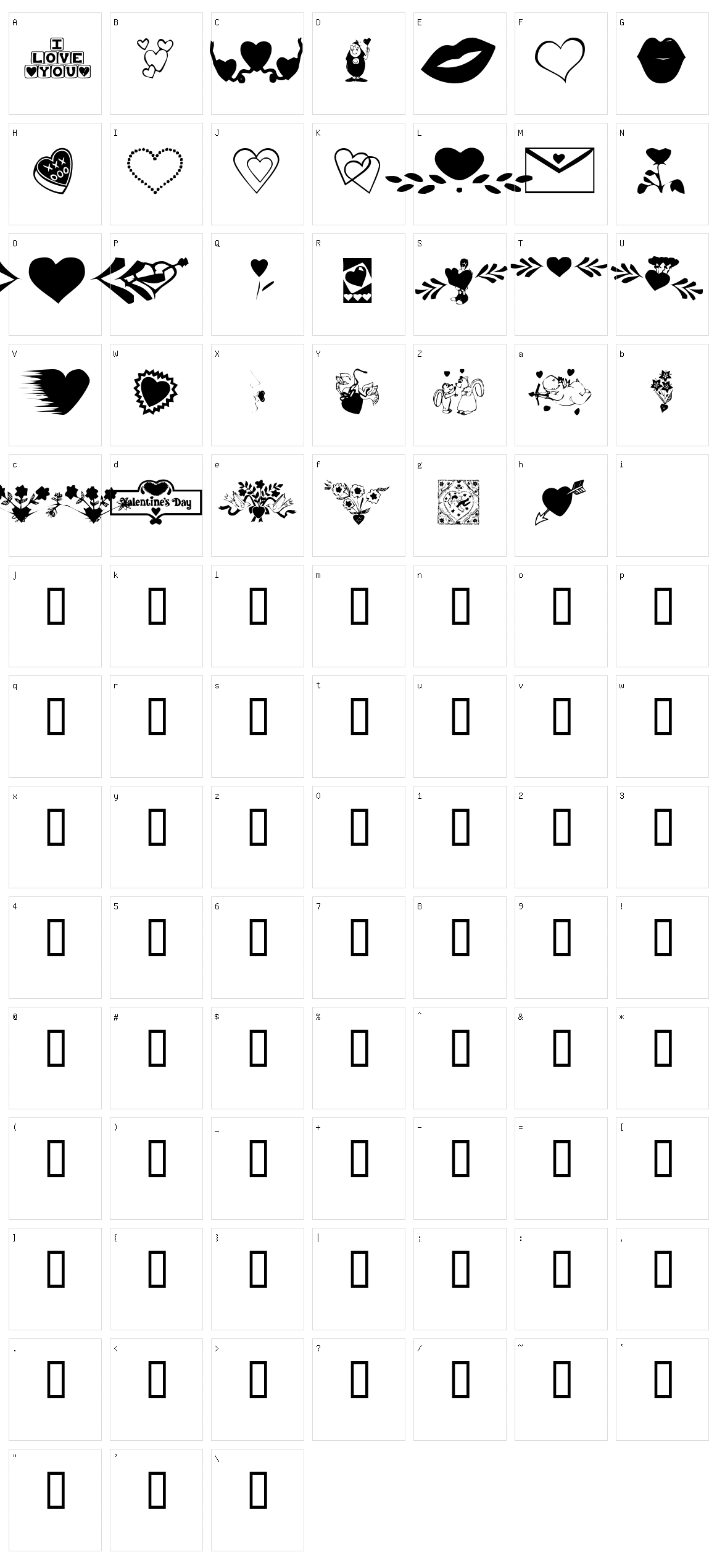
The free font KR Be Mine More is carefully designed by Kat's Fun Fonts, showcasing a thoughtful balance of creativity and usability and falls under the Valentine font style. When you download the ZIP file, it contains only 34.77 KB of font files, making it lightweight and quick to download. Please review the license details below to understand permitted usage and distribution rights. If license information is not available, we recommend using this font for personal projects only or contacting the author directly for commercial usage permissions.